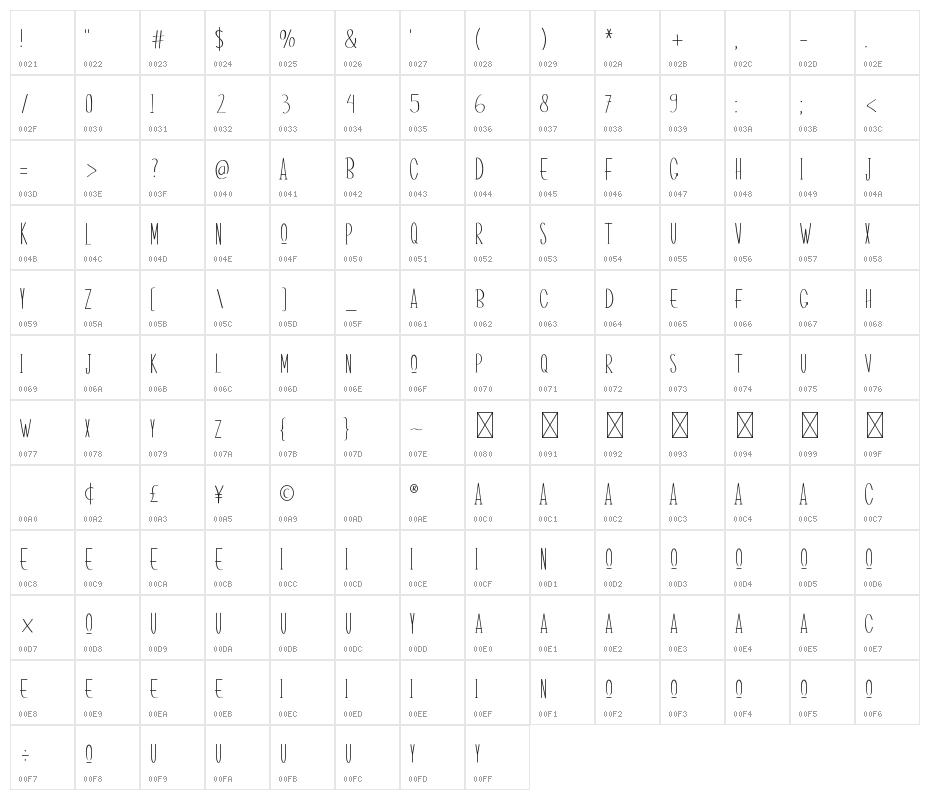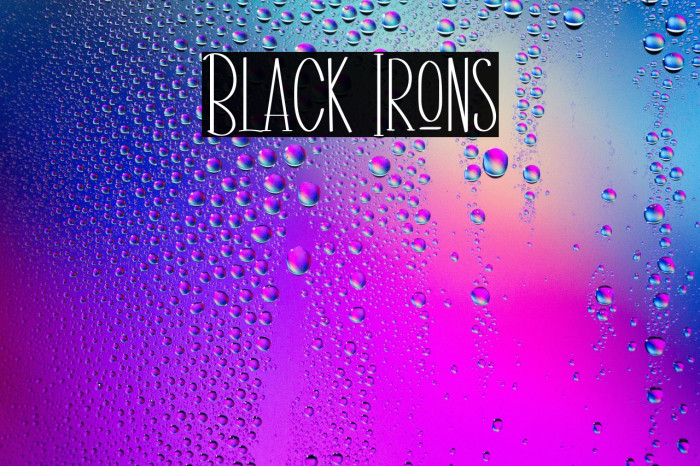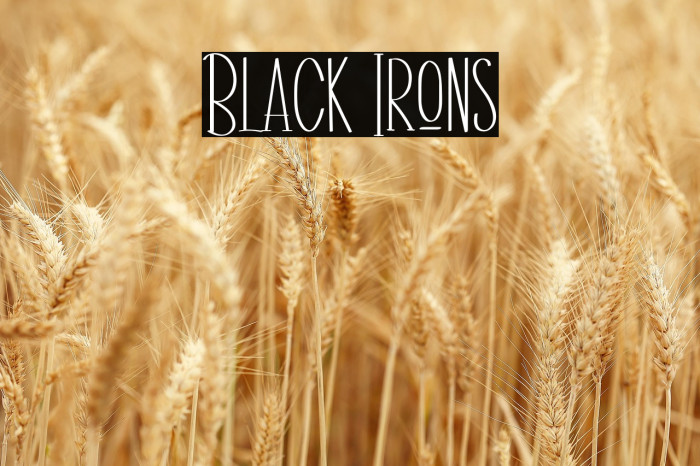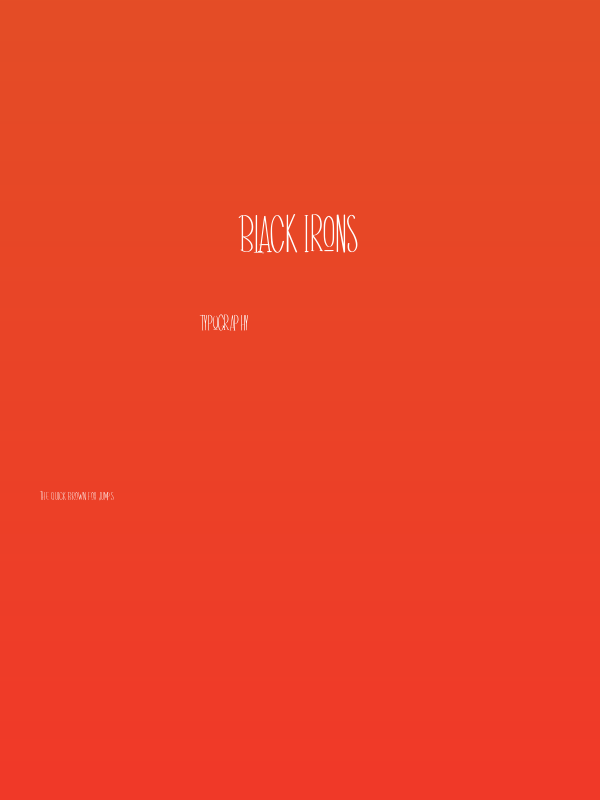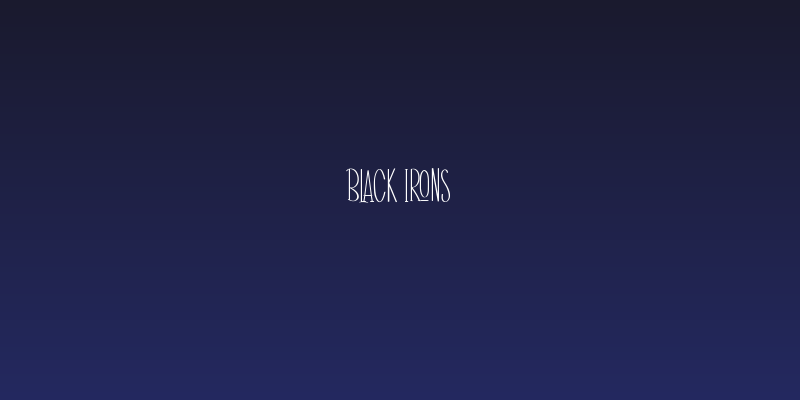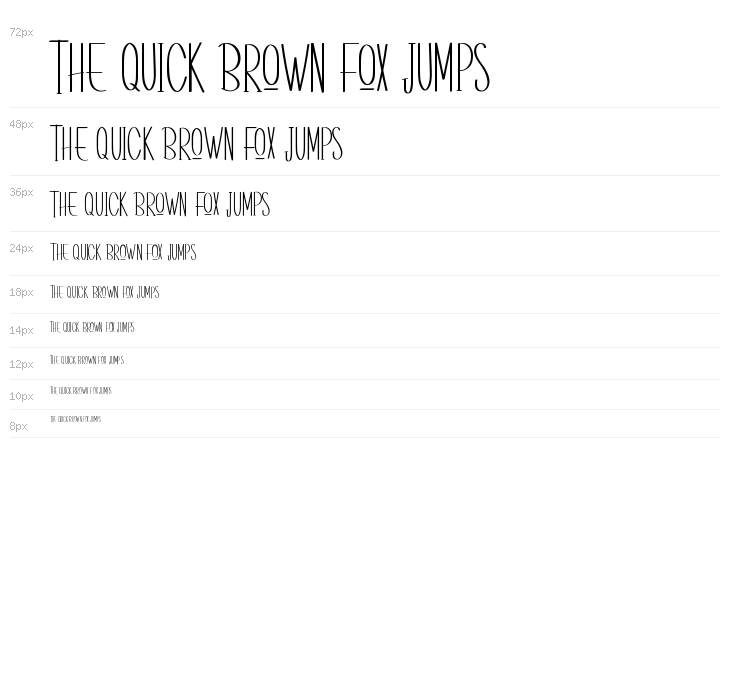
Black Irons Font
Black Irons Description
This font features a unique and elegant design with tall, narrow characters that exude a sense of sophistication and modernity. The uppercase letters are particularly elongated, giving the font a distinct vertical emphasis. The strokes are thin, with subtle variations in thickness that add a touch of dynamism without compromising readability. The lowercase letters maintain the same slender proportions, ensuring a cohesive look across all text. Numbers and special characters are crafted with the same attention to detail, making them seamlessly integrate with the alphabetic characters. This font's overall aesthetic is both stylish and versatile, suitable for a variety of design applications.
Use CaseHeadlines, Logos, Invitations
Proposed ProjectsIdeal for fashion magazines, luxury branding, wedding invitations, and high-end product packaging.